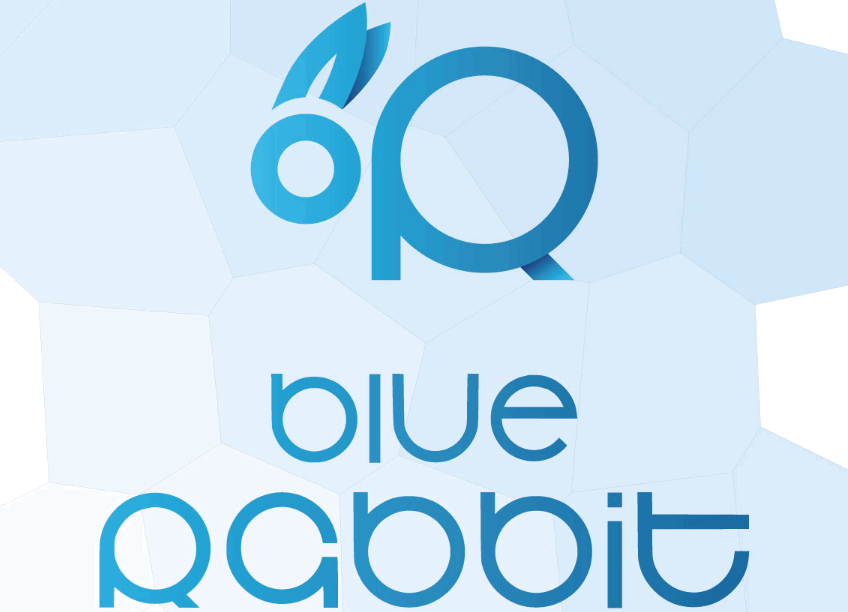
Blue Rabbit Typeface
Blue Rabbit is an elegant font. With its strong contrast and curves, it will seduce you and bring a touch of class in any circumstance at any time.
You can use Blue Rabbit for print and web projects as well. It will fit perfectly for fashion, music, logo design, weddings, posters and many more.